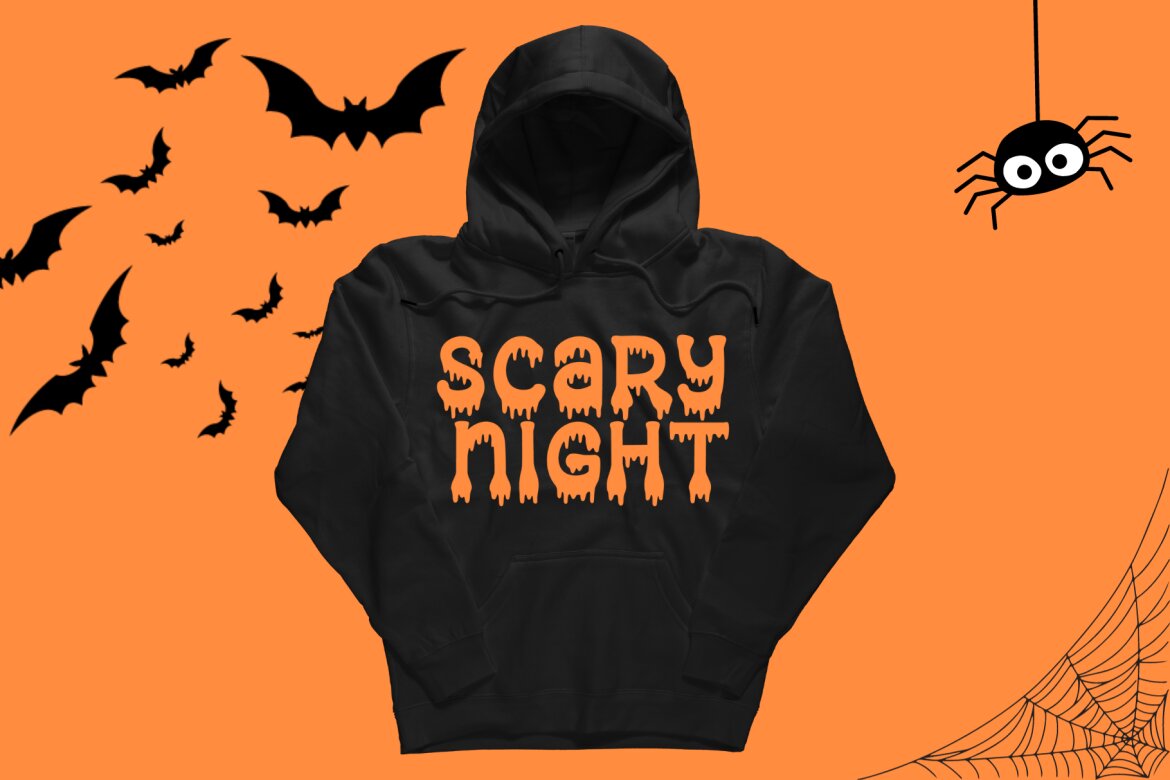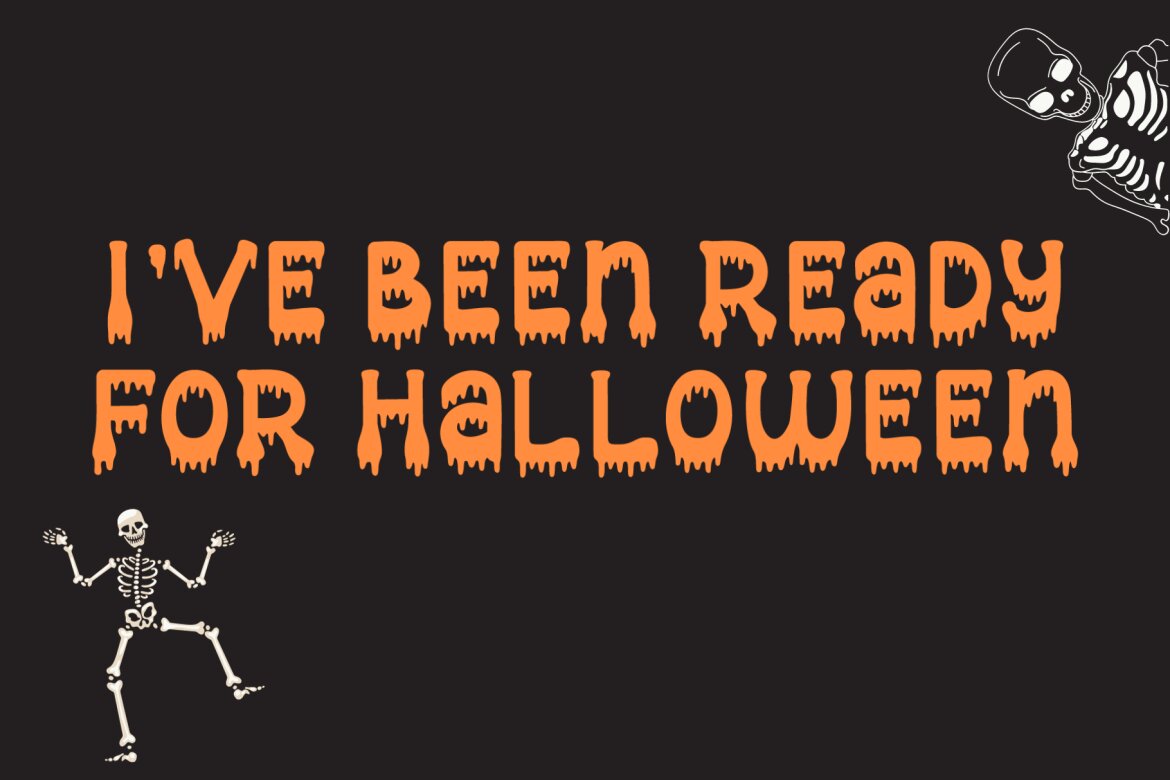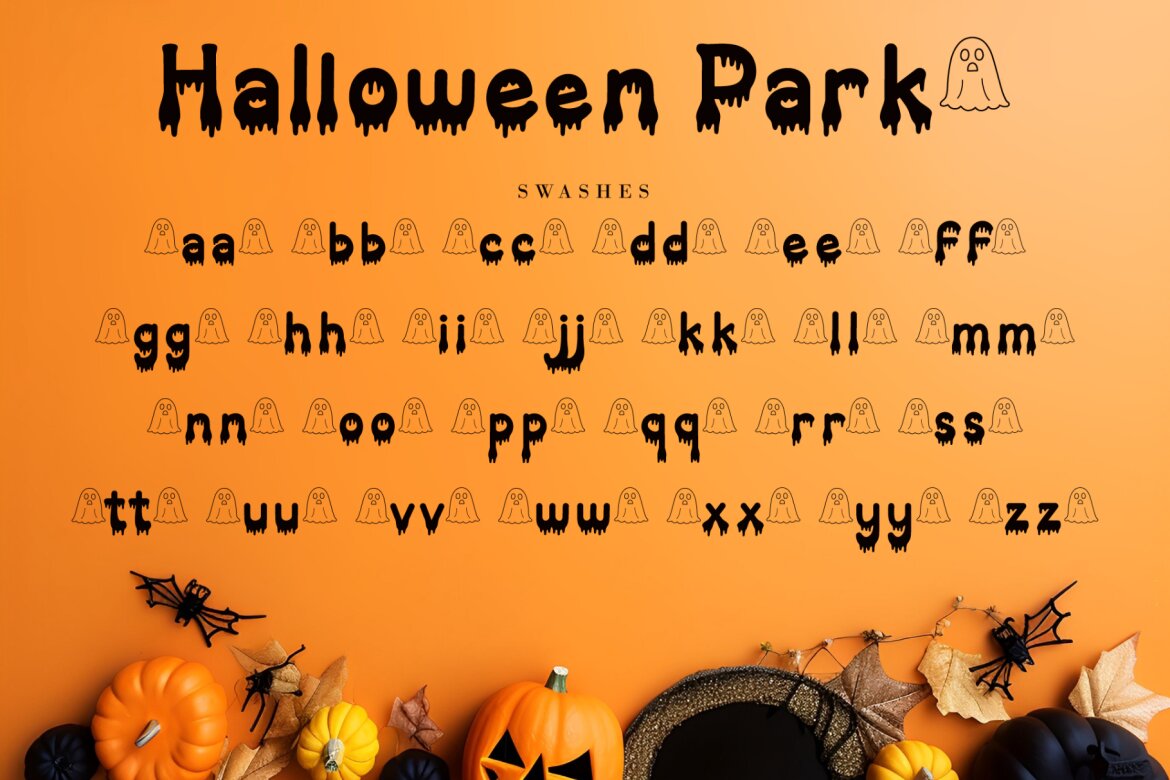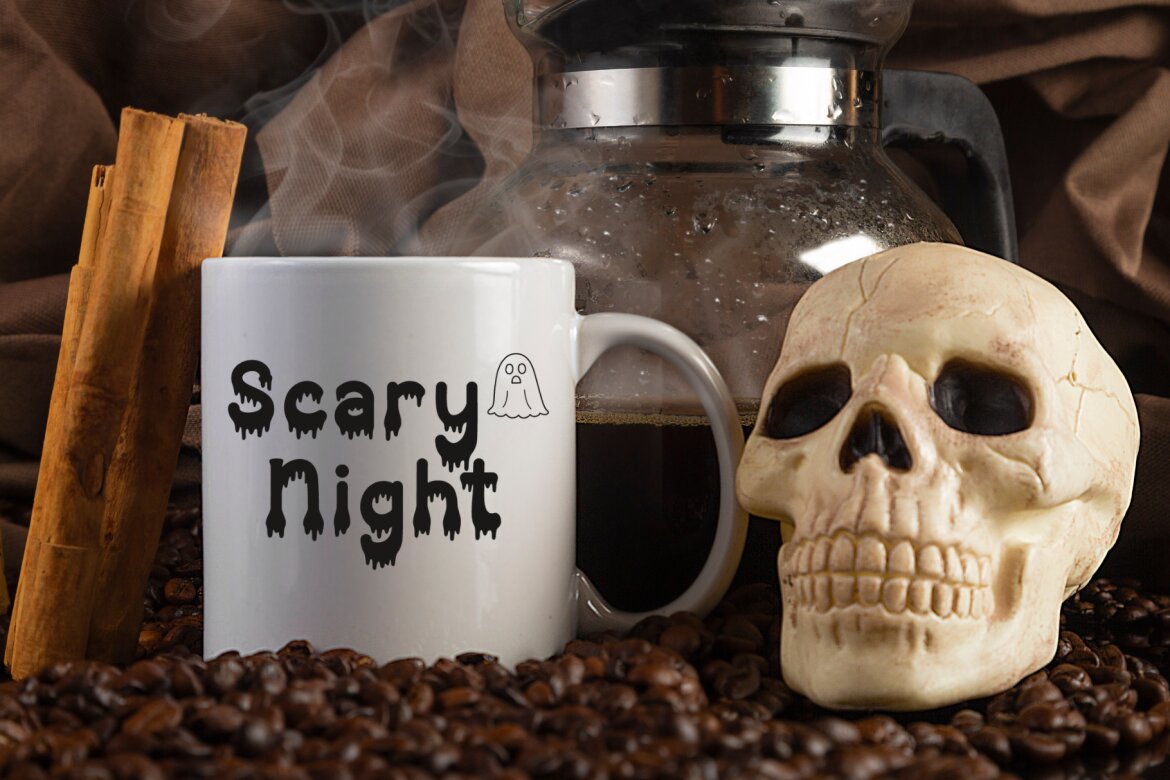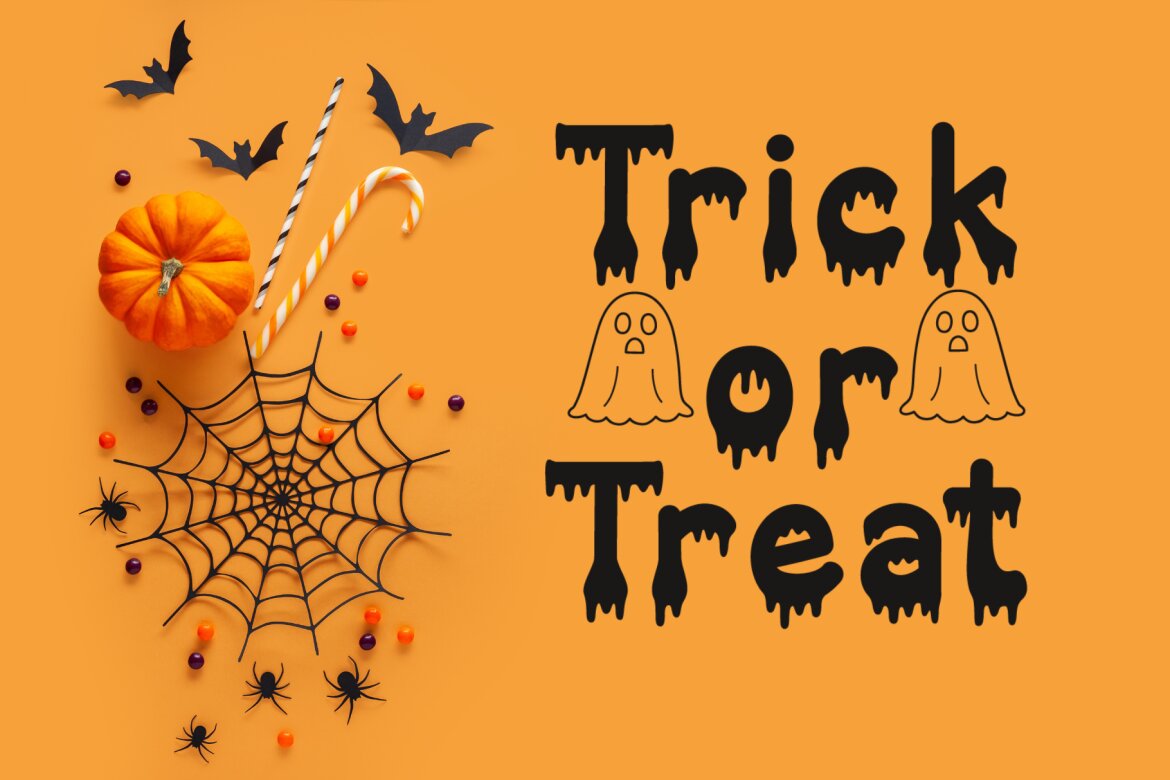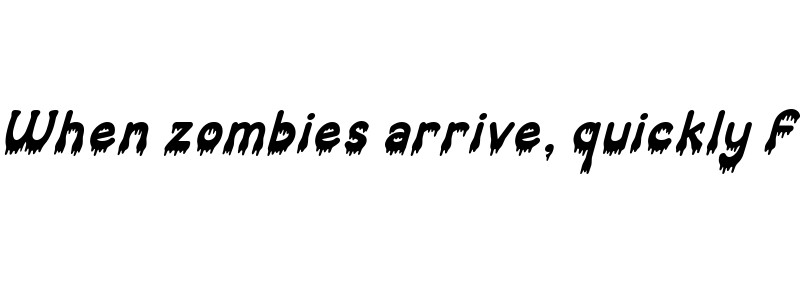
October Nightmare FREE Font
October Nightmare Font is a captivating and spooky display font designed to perfectly encapsulate the spirit of Halloween. This display font is an ideal choice for creating chilling and eye-catching designs for Halloween-themed posters, apparel, embroidery, crafts, and other festive applications.
• ligatures, swashes & titiling